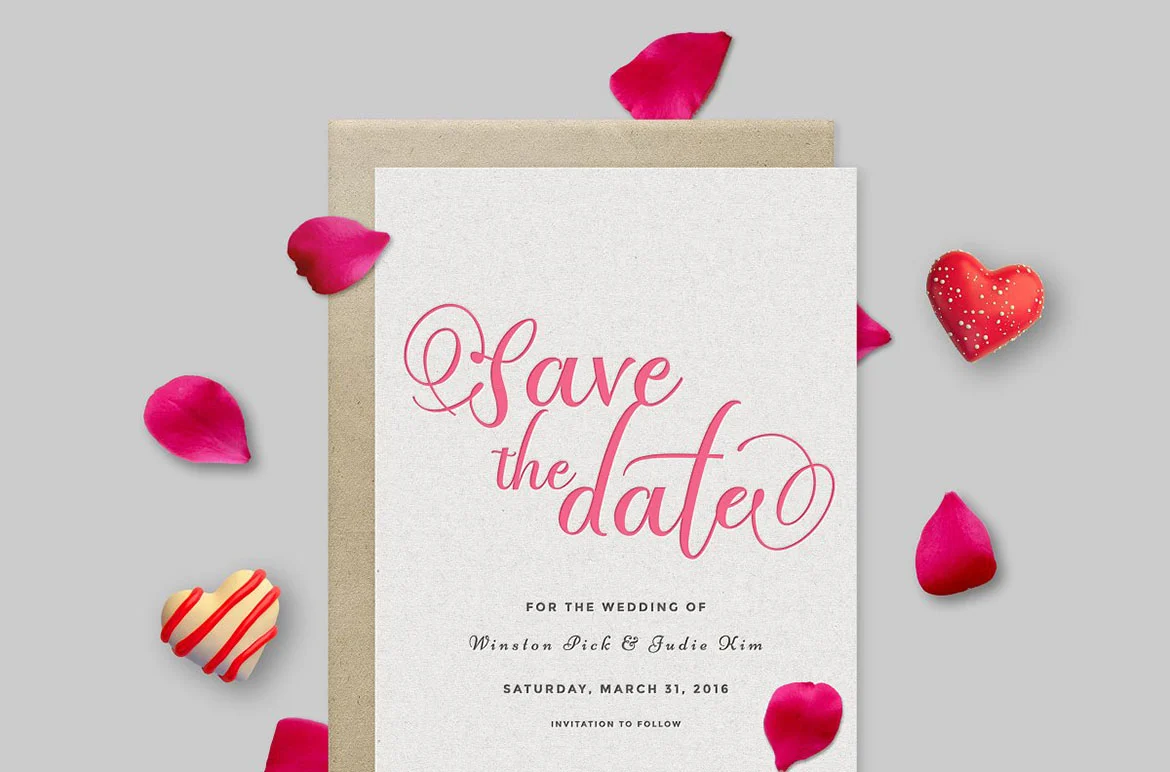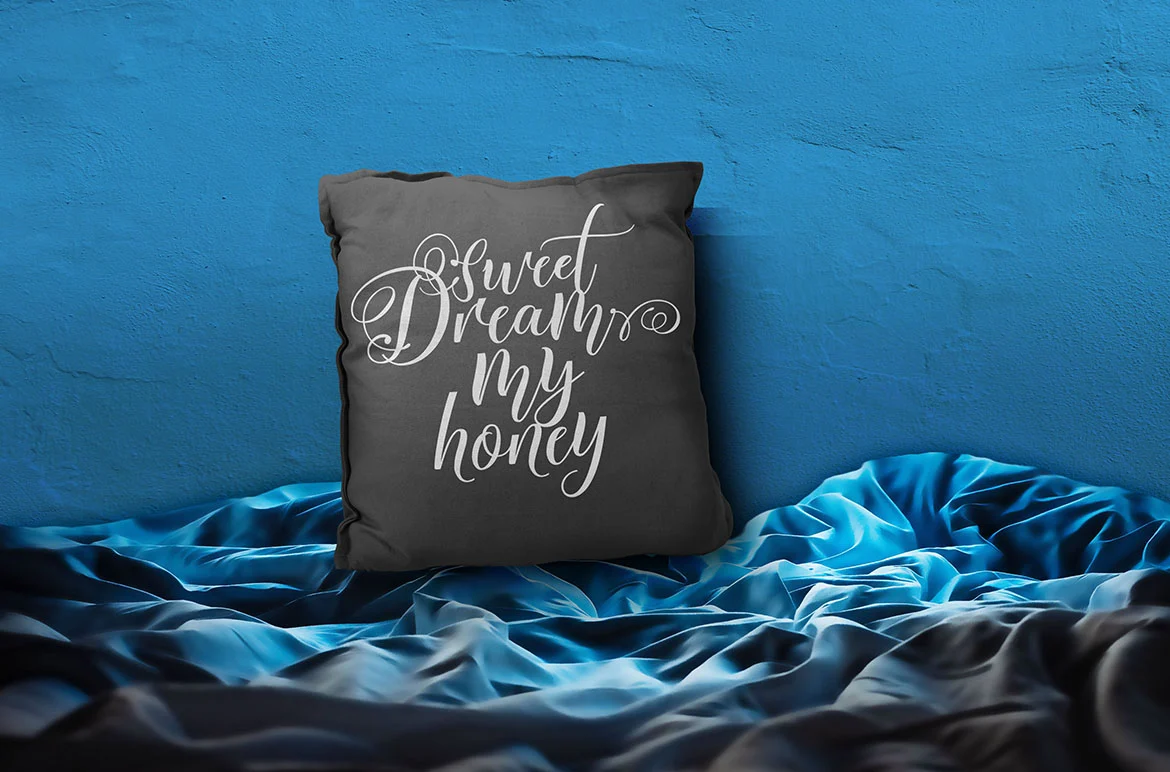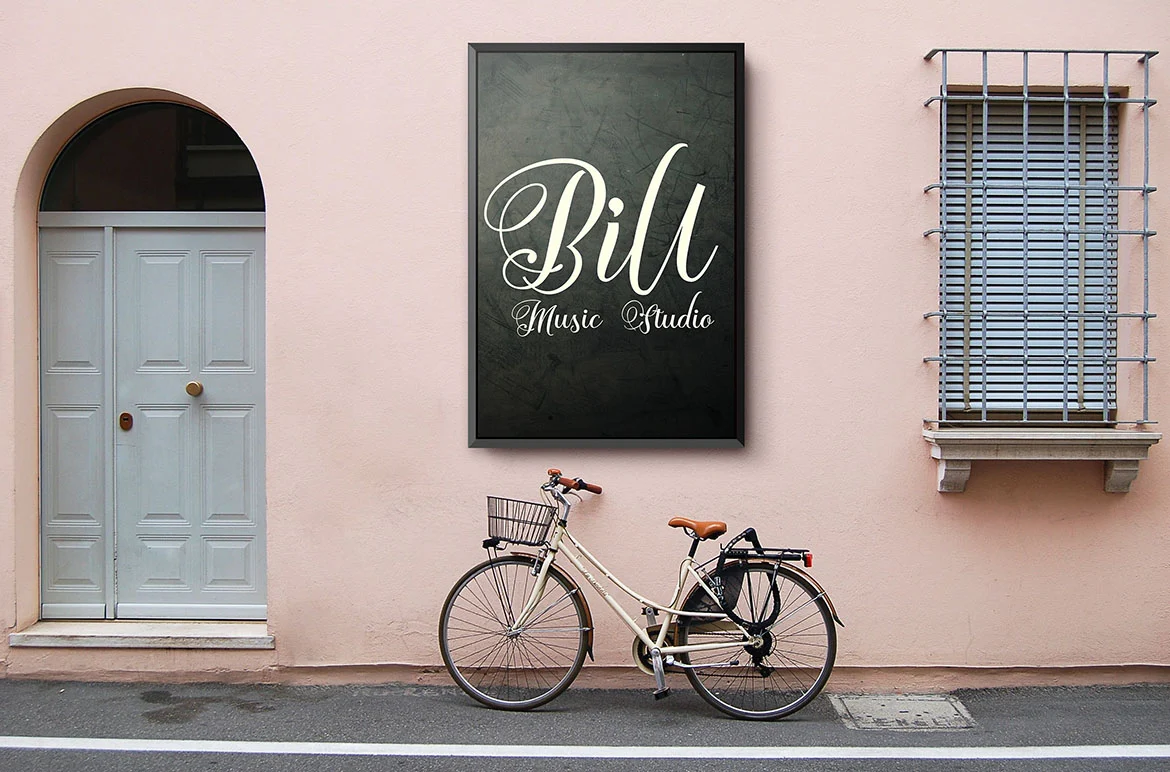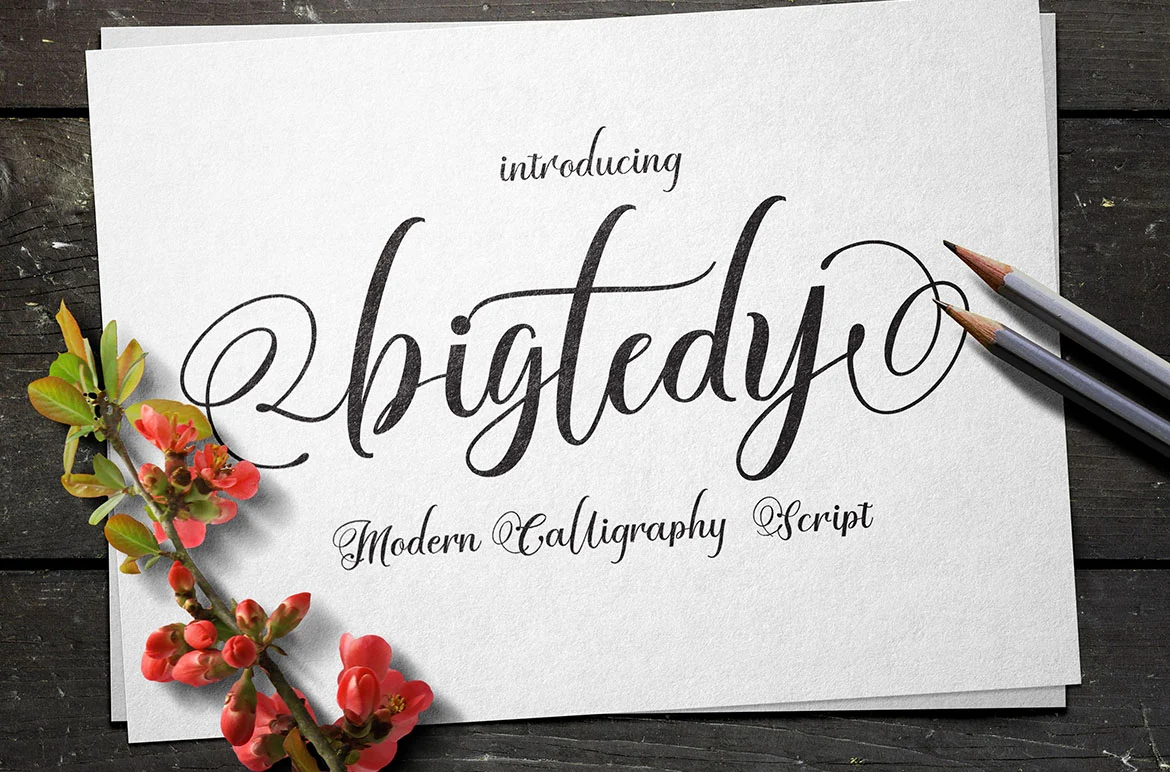
BIGTEDY Font
Bigtedy Script is a beautiful Script Font, It suitable for Signature, greeting cards, T-Shirt, Logo, Branding or any design that you create.comes with a complete set of standard characters, Alternates, Punctuation & international glyphs
Features
*UPPERCASE
*lowercase
*numeral
*punctuation
*international glyphs
*Ligatures
*Alternates Glyphs
*Stylistic Alternates